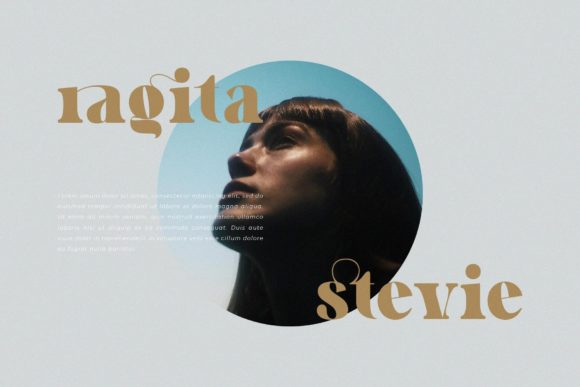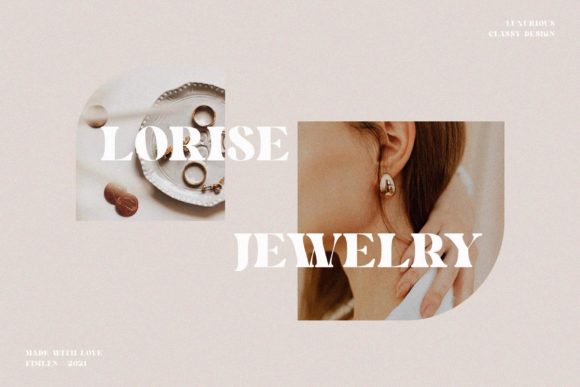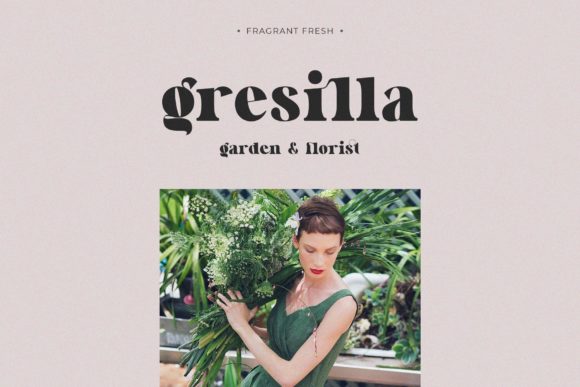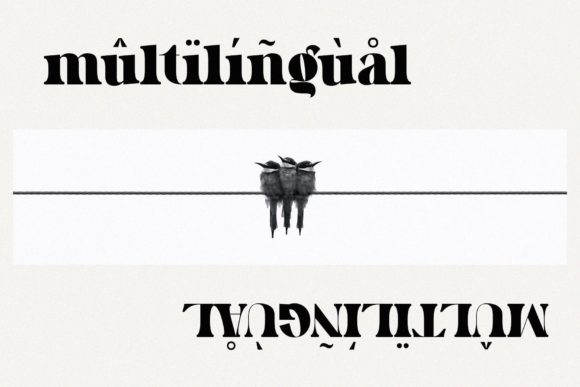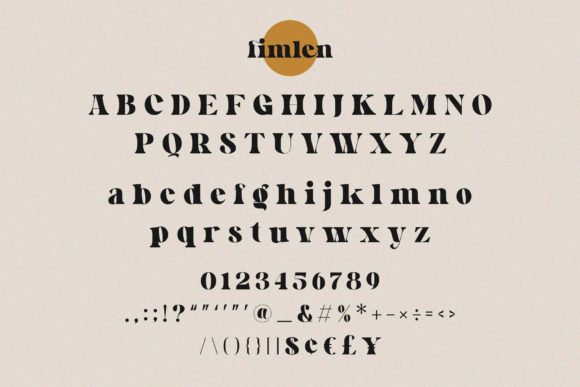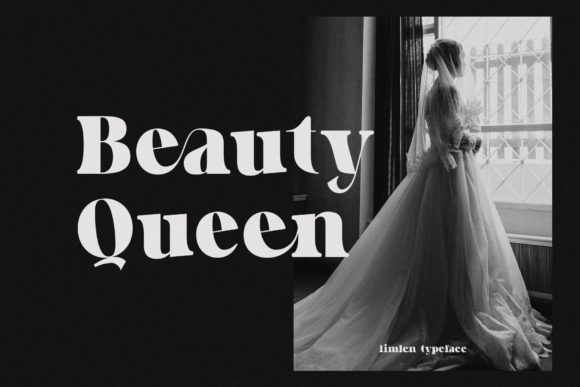
Fimlen Font: Elevate Your Designs with Luxury and Sophistication
In the world of typography, a well-crafted font can make all the difference in elevating your design to new heights. If you’re a designer or crafter looking for a classy and luxurious serif font, look no further than Fimlen Font. This stunning font is perfect for a wide range of applications, from logos and magazines to social media posts, branding, advertisements, name tags, and more.
The Characteristics of Fimlen Font
Fimlen Font is a serif font that exudes luxury and sophistication. Its classic design makes it an excellent choice for projects that require a touch of elegance and refinement. The font’s serif details add a level of sophistication, making it perfect for high-end branding, editorial design, and advertising.
What Makes Fimlen Font So Versatile?
One of the key features that sets Fimlen Font apart is its versatility. This font can be used for a wide range of applications, including:
- Logos: Create a lasting impression with a custom logo that showcases your brand’s personality and style.
- Magazines: Add a touch of luxury to your editorial design with Fimlen Font’s elegant serif details.
- Social Media Posts: Elevate your social media presence with eye-catching graphics and typography.
- Branding: Develop a cohesive brand identity with Fimlen Font’s classy and sophisticated design.
- Advertisements: Grab attention and make a lasting impression with Fimlen Font’s luxurious aesthetic.
- Name Tags: Add a touch of elegance to your name tags and identification cards.
Why Choose Fimlen Font?
With so many fonts available, why choose Fimlen Font? Here are just a few reasons why designers and crafters love this luxurious serif font:
- Unique and distinctive: Fimlen Font stands out from the crowd with its classic serif design and luxurious aesthetic.
- High-quality design: Fimlen Font is crafted with attention to detail, ensuring a high-quality design that will elevate your projects.
If you’re looking for a classy and luxurious serif font that will elevate your designs, look no further than Fimlen Font. With its versatile design, PUA encoding, and high-quality craftsmanship, this font is perfect for designers and crafters who want to add a touch of sophistication to their projects. Whether you’re working on a logo, magazine, social media post, or branding project, Fimlen Font is the perfect choice.